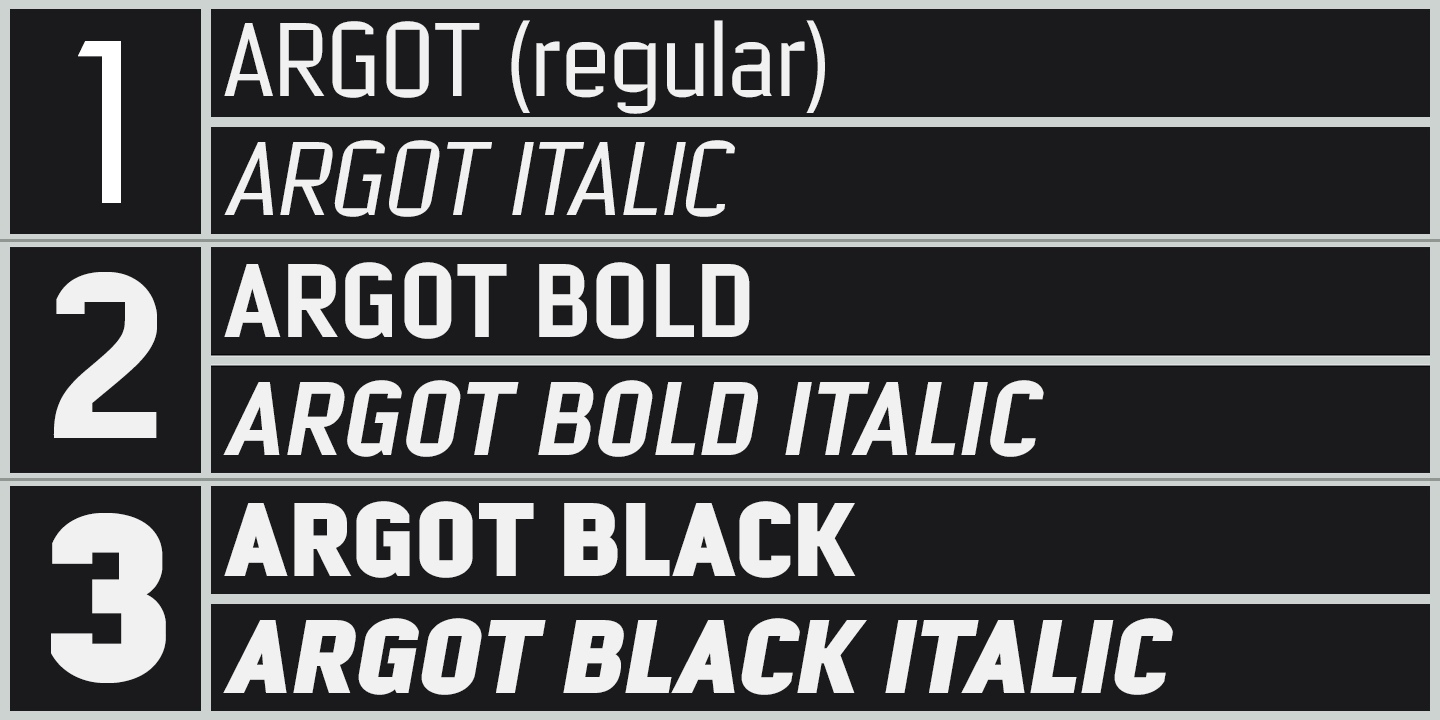
Argot Complete Family Font
This comprehensive font system is perfect for extensive brand identity projects, complex editorial design, multi-platform corporate communications, comprehensive web design systems, professional publishing, technical documentation, large-scale signage programs, and enterprise-level design applications.
What makes this font exciting is its remarkable versatility and systematic design approach that provides designers with a complete typographic toolkit for any project scale or complexity. The carefully coordinated family members work harmoniously together while offering distinct personalities, creating endless possibilities for hierarchical organization and visual storytelling across all media formats and communication needs.
The Argot Complete Family Font includes multiple subfamilies with various weights, widths, and styles, ranging from display to text optimized versions, along with condensed and extended variations that provide unparalleled design flexibility for comprehensive brand systems.
Argot Complete Family Font Free Download offers creative professionals an extraordinary solution for building sophisticated, scalable brand identities that maintain consistency across all touchpoints. This meticulously developed font system brings enterprise-level typography to design projects of any scope, making it ideal for multinational corporations, publishing houses, government agencies, and educational institutions requiring comprehensive typographic solutions that adapt seamlessly to diverse communication requirements.
The exceptional versatility of Argot Complete Family Font shines through its systematic approach to type design that addresses every possible use case. Each subfamily has been carefully optimized for specific applications, from micro-typography for mobile interfaces to large-scale environmental graphics, ensuring optimal performance and visual quality. This comprehensive approach makes it particularly valuable for complex organizations, major media companies, international brands, and design agencies requiring typography that maintains brand coherence across multiple markets and communication channels.
Professional designers will appreciate this font family's ability to solve virtually any typographic challenge while maintaining visual consistency. From annual reports to website redesigns, from packaging systems to wayfinding programs, Argot Complete Family Font provides the breadth and depth necessary for sophisticated design solutions. The family's extensive OpenType features, language support, and technical specifications ensure professional-grade performance across all platforms, making it an indispensable resource for design teams working on large-scale projects requiring typographic excellence and systematic brand consistency.